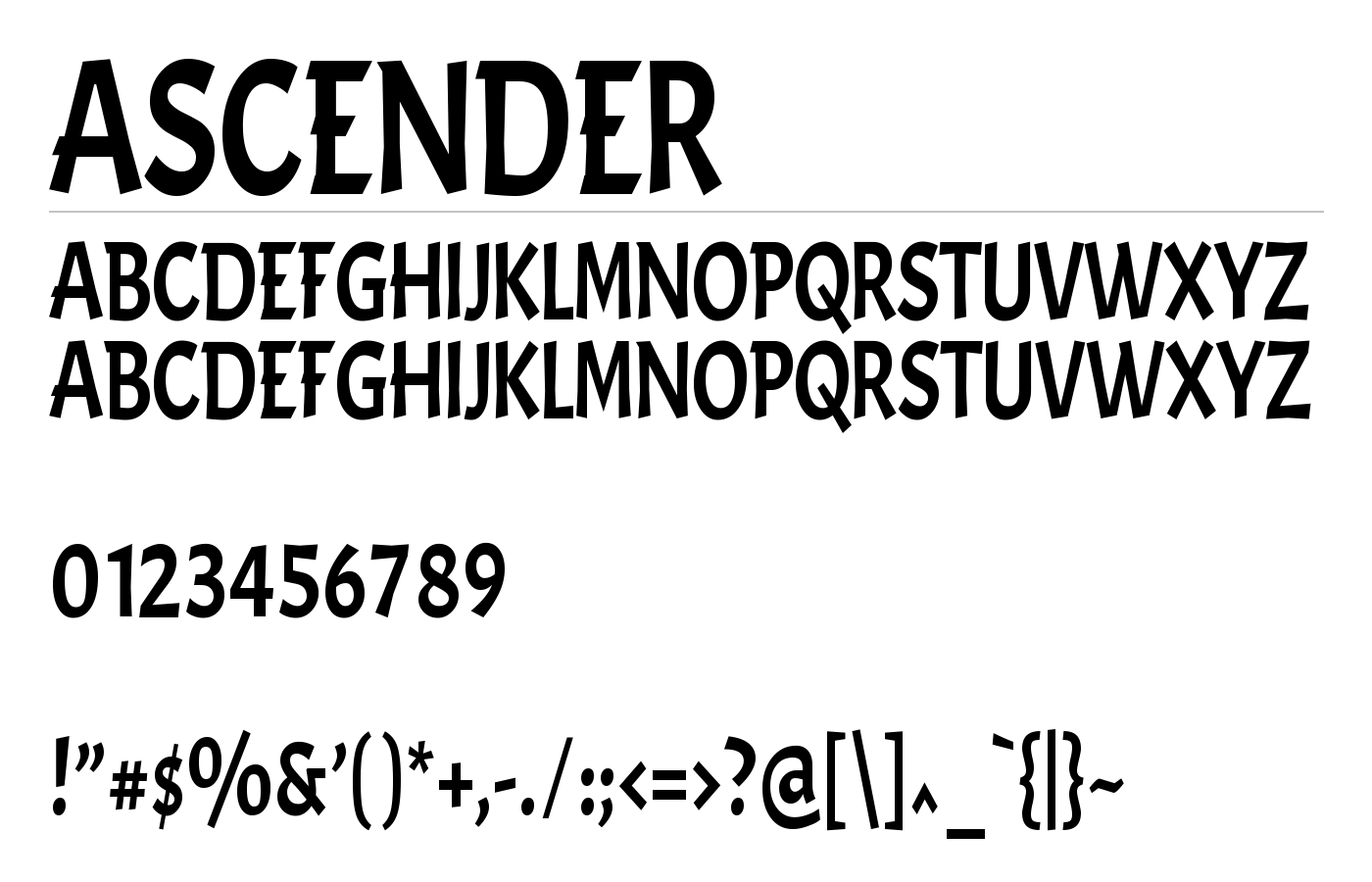
Ascender is a bold, playful sans-serif font with a quirky, hand-drawn feel created by its slightly uneven letterforms and distinctive angular details. Its strong presence and lively character make it ideal for eye-catching headlines, posters, and branding that aim for a fun yet confident vibe. This font works best in creative contexts where a touch of personality and a dynamic style are desired.
Ascender Font
About Ascender Font